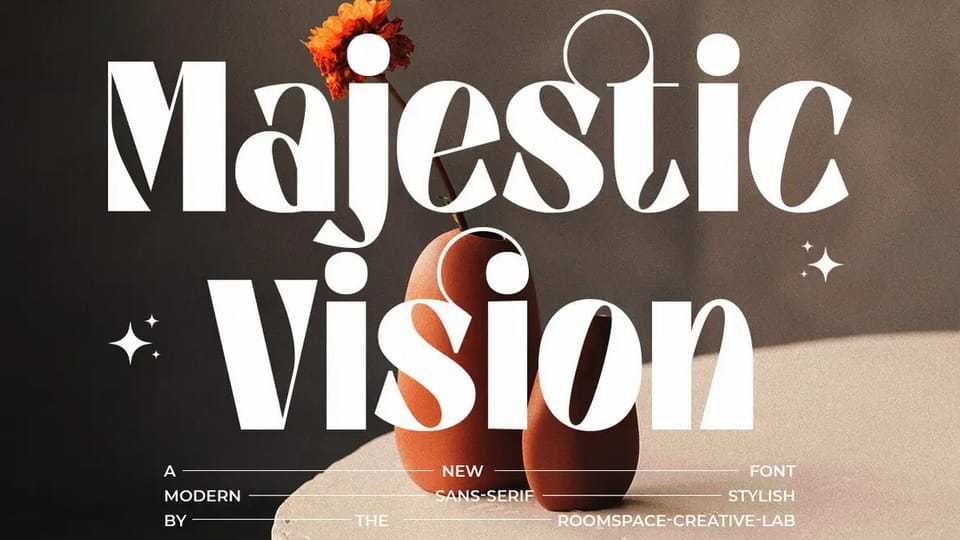
Download Majestic Vision font, a display serif typeface that commands attention through bold shapes, sculptural contrast, and a strong editorial flair. Its design merges retro aesthetics with modern sensibility perfect for brands.